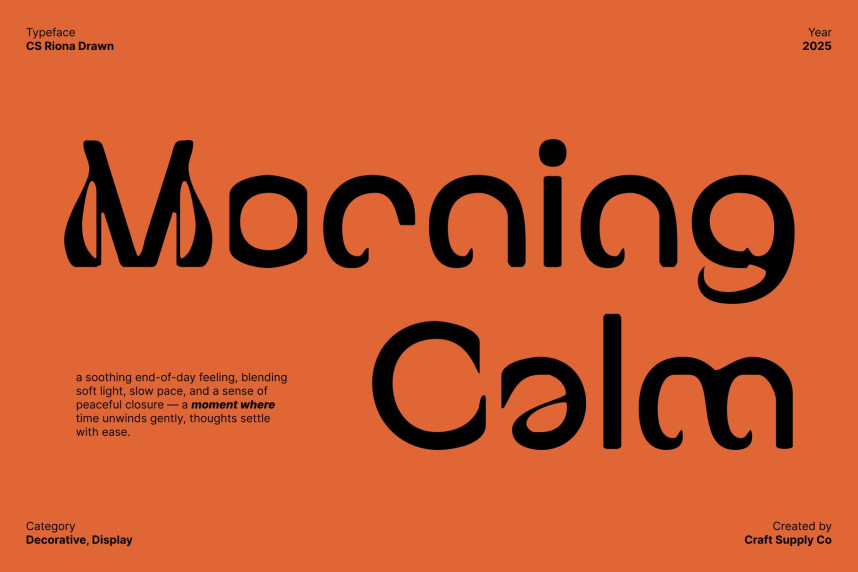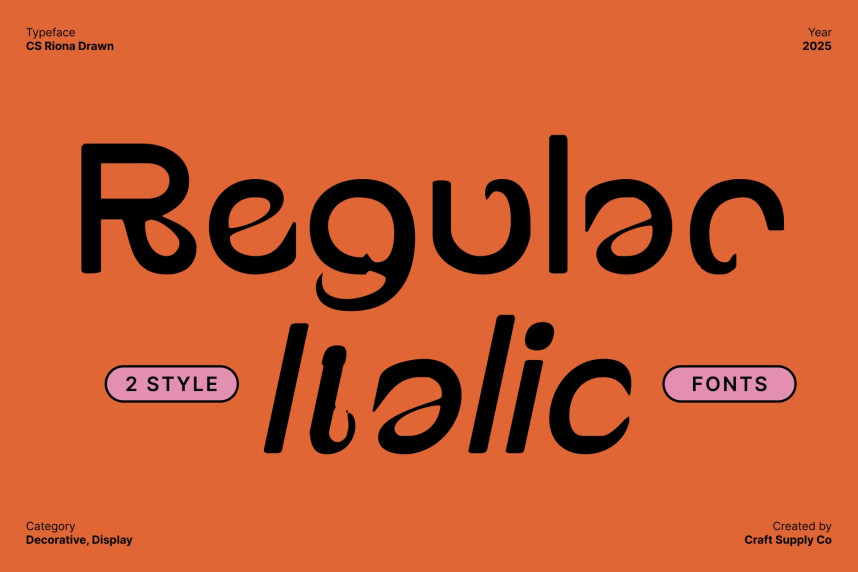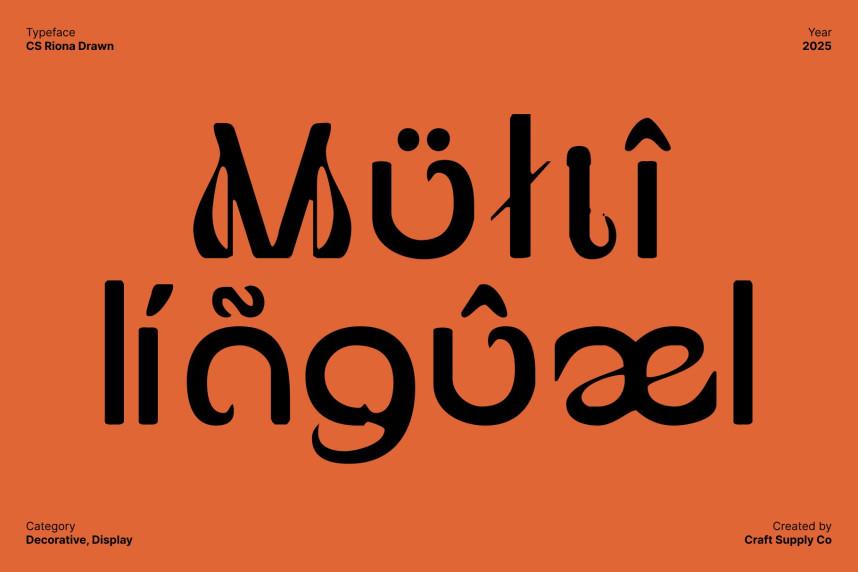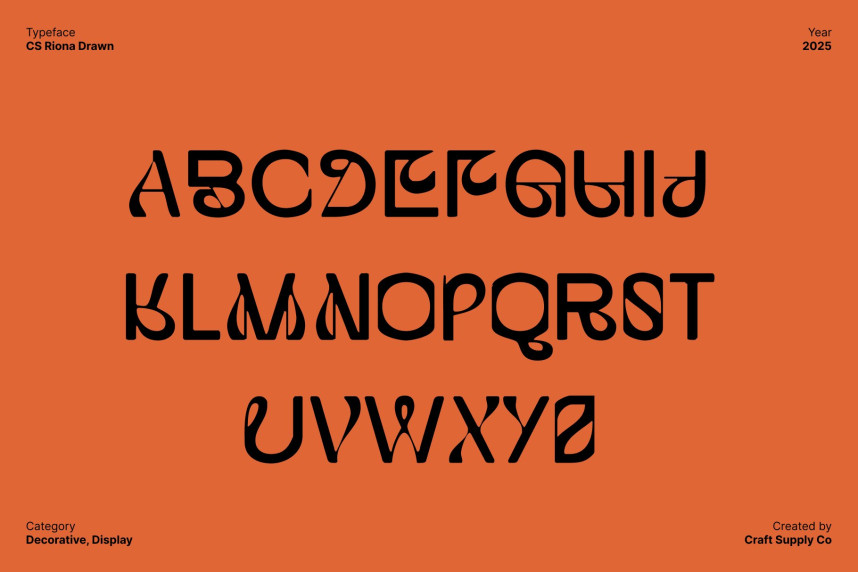
CS Riona Drawn Font
CS Riona Drawn Font – Artistic Sans Serif with Hand-Drawn Texture and High-End Personality Refined Sans Serif with Artistic Flair. This is a sophisticated sans serif font designed to combine modern clarity with artistic expression. Its clean structure is enhanced with decorative alternates and unique ligatures, giving each letterform personality and a distinctive visual rhythm. This balance of refinement and creativity makes it ideal for designers looking to elevate logos, posters, and editorial layouts with a high-end, stylish edge.